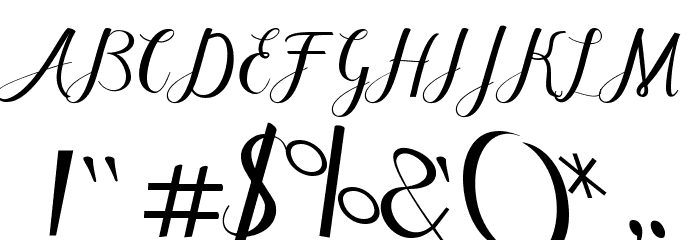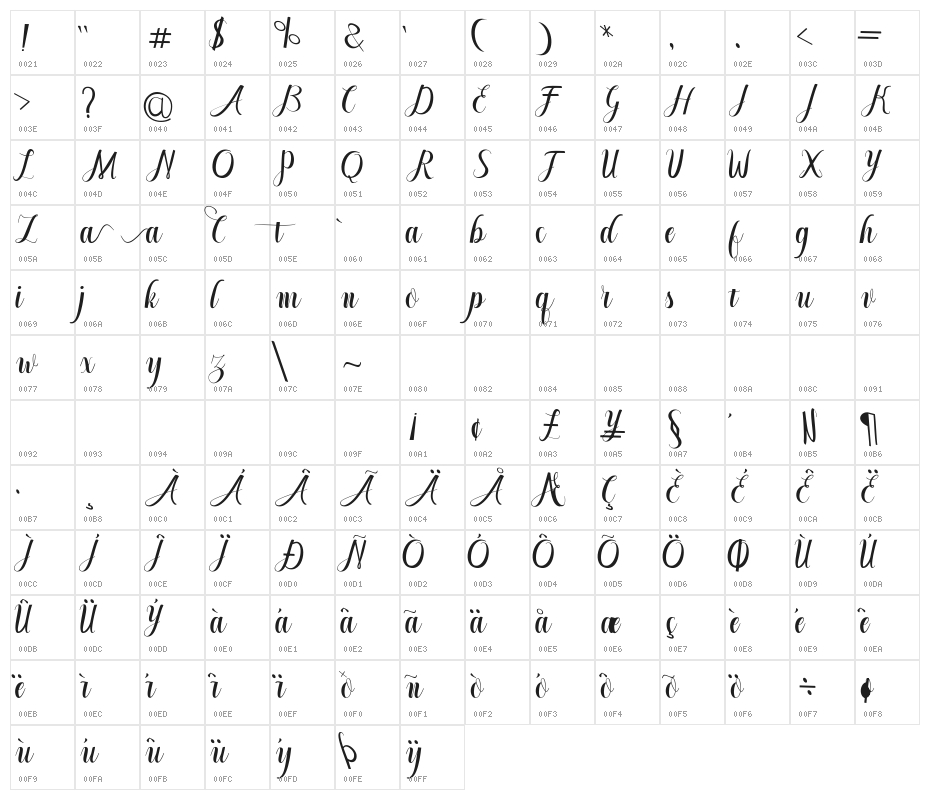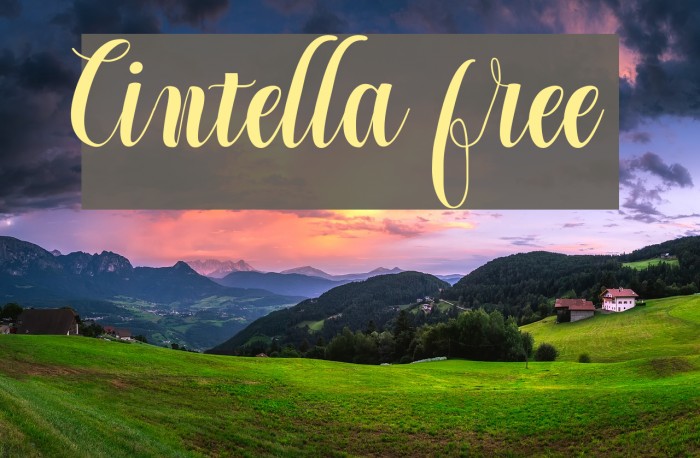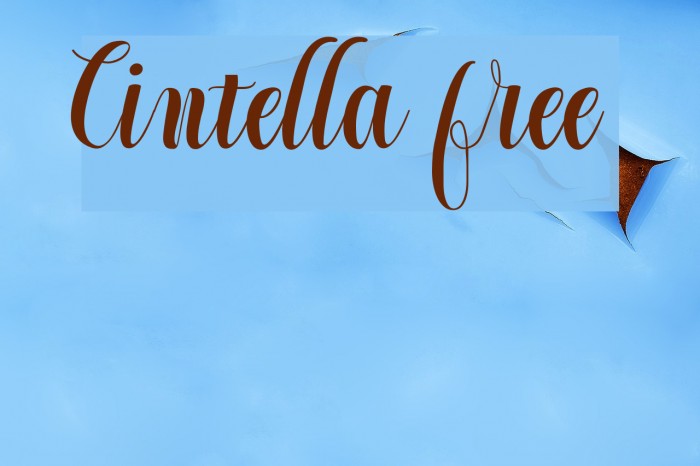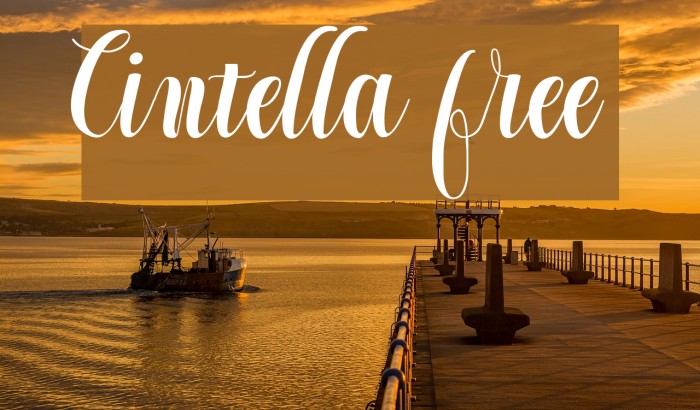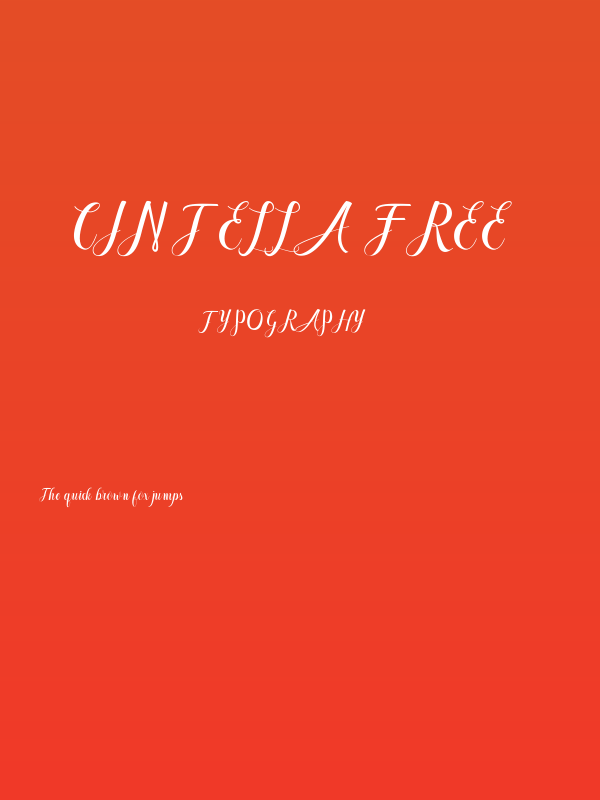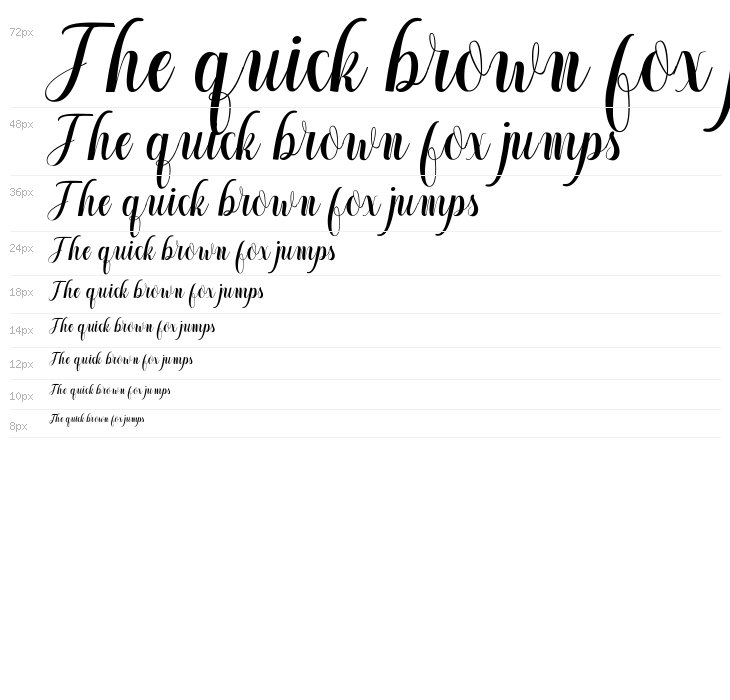
Cintella free Font
Cintella free Description
This font features an elegant and flowing script style, characterized by its smooth, cursive strokes and graceful curves. The uppercase letters are tall and slender, with distinctive flourishes that add a touch of sophistication. The lowercase letters maintain a consistent flow, with some characters featuring unique loops and swashes that enhance the font's decorative appeal. The numerals and special characters are designed to complement the overall style, maintaining the same fluidity and elegance. This font is ideal for projects that require a touch of class and refinement.
| Proposed Projects | Wedding invitations, luxury branding, elegant stationery, and decorative signage. |